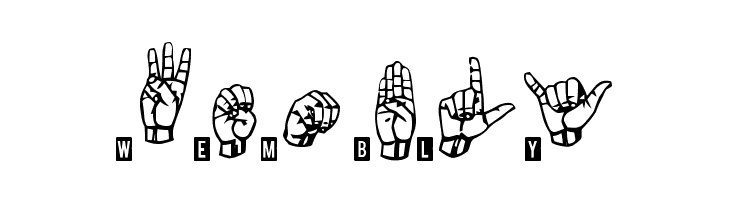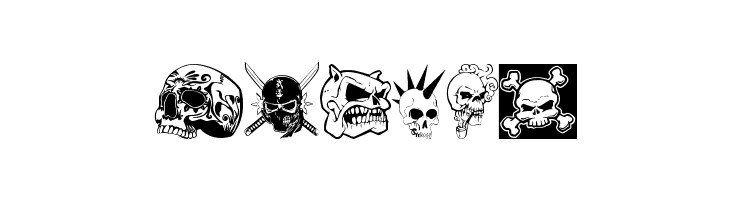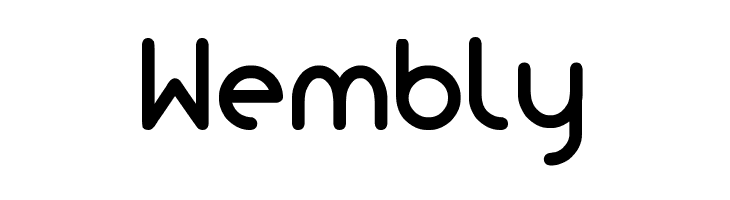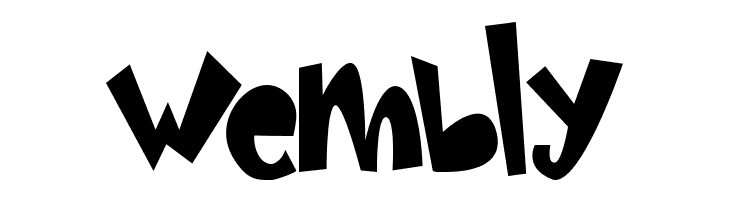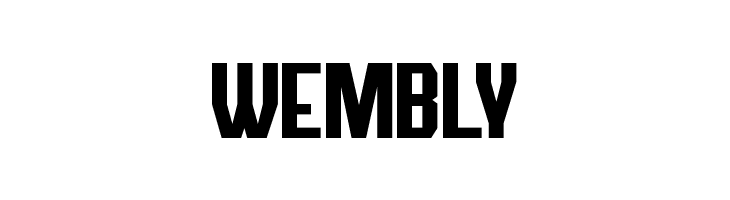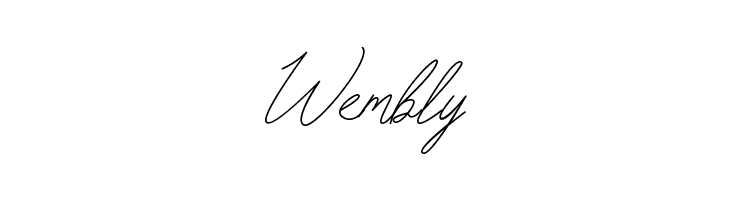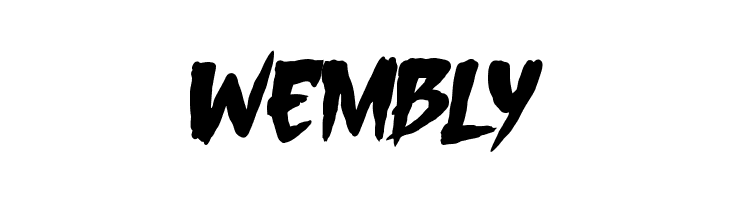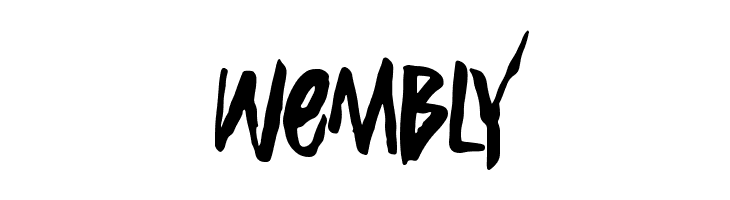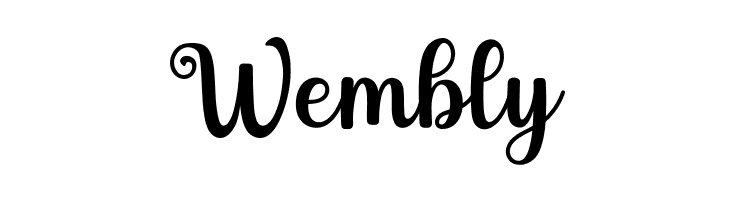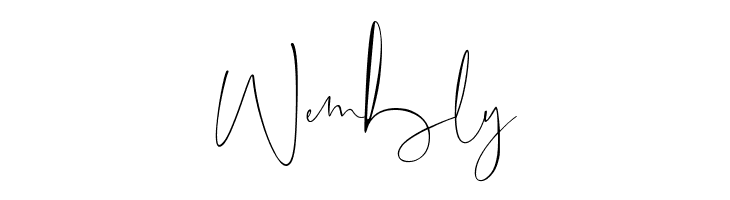
An elegant, cursive font with a flowing, handwritten style.
A font depicting the alphabet and numbers through hand signs, inspired by sign language.
A bold, handwritten font with fluid, slanted strokes and a dynamic style.
A bold, geometric font with strong, angular shapes ideal for impactful headlines.
A bold, hand-painted style font with dynamic, irregular strokes.
A distressed, vintage-style font with irregular edges and a rustic feel.
Casual handwritten script font.
A playful and bold font with irregular, exaggerated letterforms and a whimsical style.
A flowing, elegant cursive font with graceful loops and smooth connections.
A playful, casual handwritten font with smooth, flowing curves.
A modern, rounded font with clean lines and even spacing.
A whimsical, decorative font with playful swirls and curls.
A casual, handwritten font with an informal and playful style.
A modern, clean sans-serif font with consistent stroke widths and excellent legibility.
A whimsical, handwritten font with fluid, cursive strokes and artistic flair.
A whimsical and elegant script font with decorative loops and swirls.
Hand-drawn, skateboarding-themed decorative font with playful illustrations.
A playful, hand-drawn font with a sketch-like appearance.
A geometric serif font inspired by classical design, featuring bold strokes and precise proportions.
A decorative and geometric font with historical artistic influences.
A playful, bold, and dynamic hand-drawn style font.
A bold, playful font with rounded, dynamic letterforms.
A display font made up of diverse skull and crossbones illustrations.
A modern, geometric font with clean lines and a structured appearance.
A sleek, italicized font with a modern, geometric design.
A modern, geometric oblique font with clean lines and sharp angles.
A playful, whimsical script font with smooth, flowing lines and a handwritten feel.
A dynamic, slashed font with a textured and energetic appearance.
A bold, brush-style font with dynamic, hand-painted strokes.
A bold, dripping font with a spooky, fluid design.
A playful, dynamic handwritten font with irregular strokes and a casual appearance.
A bold, geometric font with sharp angles and a blocky design.